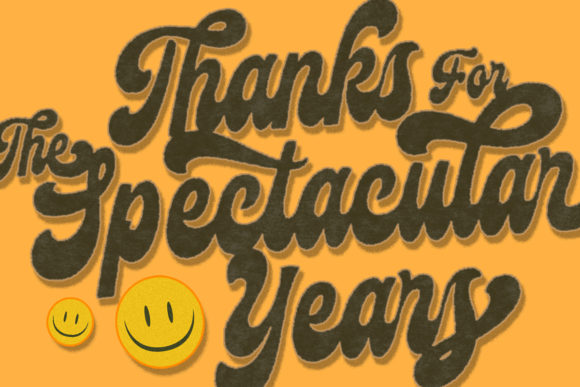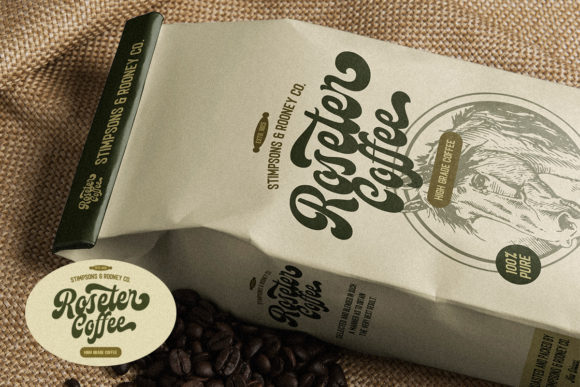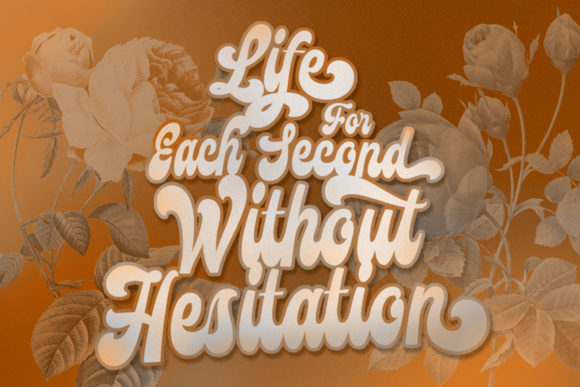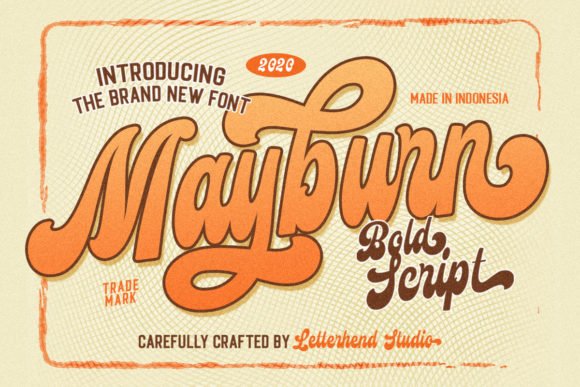
Introduction to Mayburn Font
Mayburn is a bold, retro styled handwritten font.
This font reads as strong, confident, and dynamic and can add tons of nostalgic character to your designs .
Mayburn Font offers exceptional quality and versatility, making it a valuable addition to your design toolkit. Whether you’re creating for personal projects or commercial use, Mayburn Font delivers professional results.